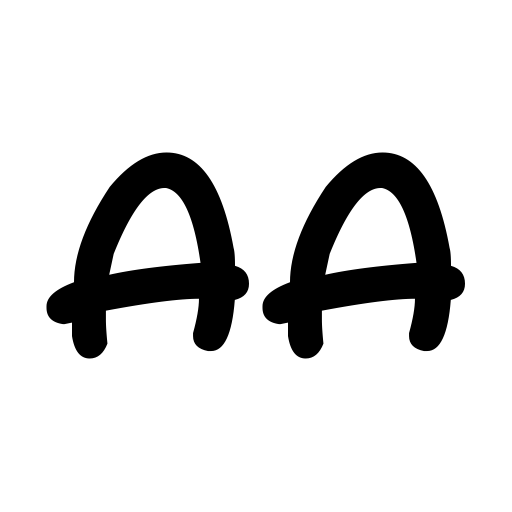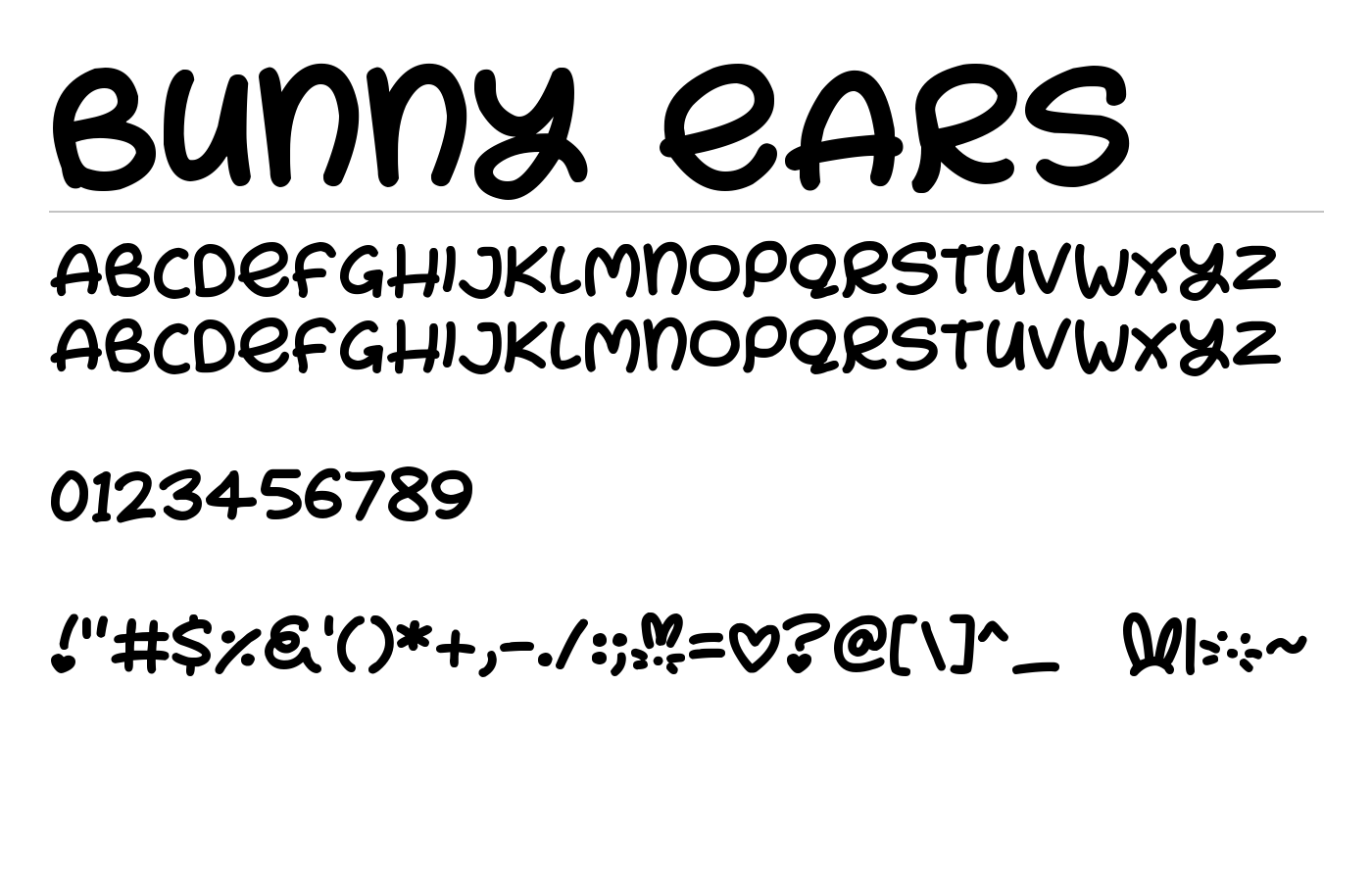
Bunny Ears Font is a playful, casual handwritten sans serif typeface with a friendly and informal feel. Its rounded, slightly irregular letterforms and moderate weight give it a warm and approachable personality, making it perfect for children’s designs, greeting cards, and creative branding that seeks a fun and lively tone. This font works well for headlines, logos, and playful editorial layouts where a touch of whimsy and charm is desired.
Bunny Ears Font
About Bunny Ears Font